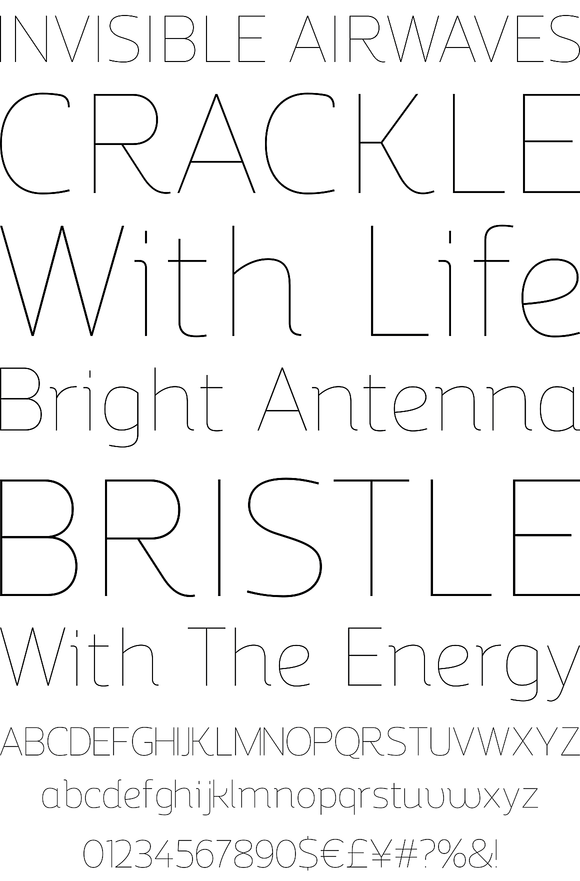
Regan Alt
An informal sans serif typeface carefully cut from the template of Regan and Regan Slab. Smooth curves are combined with simple angles to form a modern, legible font with a charming personality. Regan Alt is ideally suited to wide range of applications including advertising, fashion, retail and the web. Details include 10 weights with italics, 540 characters, 5 variations of numerals, small caps, stylistic alternatives, manually edited kerning and Opentype features.